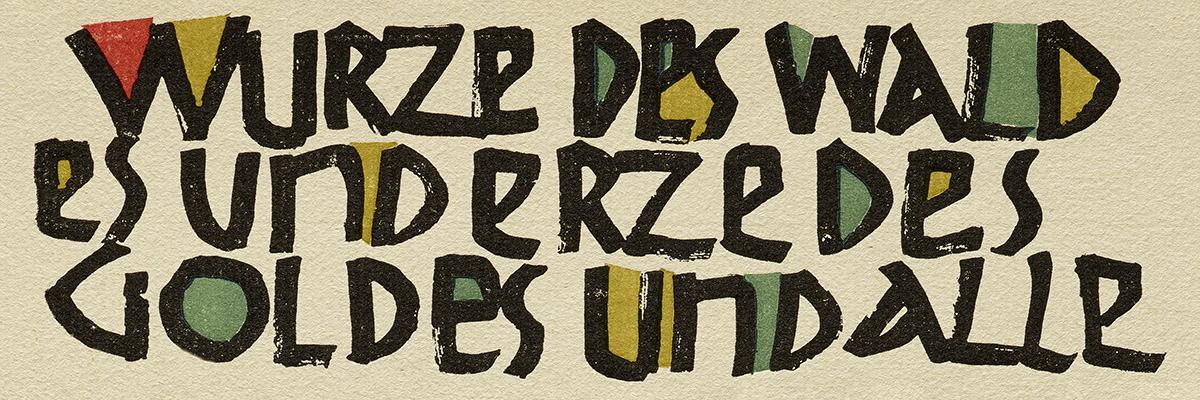
Rudolf Koch (1876-1934) designed Kabel, Neuland, Koch Antiqua (AKA Eve), and over a dozen other typefaces. He was a seminal figure in the twentieth century revival of calligraphy, an author and private press printer, and a revered and influential teacher. This talk will cover the work of Koch and his collaborators in the Offenbacher Werkstatt, including students Berthed Wolpe and Warren Chappell, in a high-definition show and tell from the extensive Koch collection at Letterform Archive.